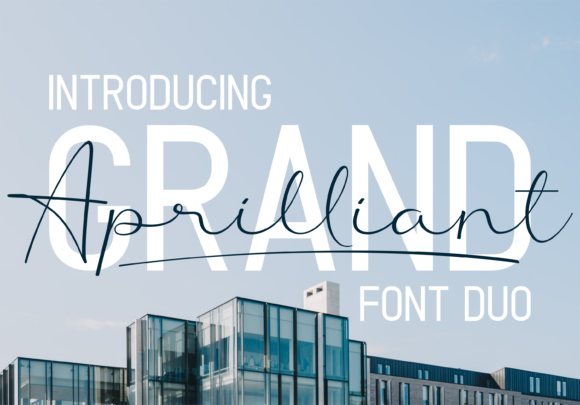
Grand Aprilliant Font Duo
Hello Font Lovers! Continues to be a very beautiful font duo. Introducing Grand Aprilliant Font. The Grand Aprilliant is a beautiful Font duo. It comes in two styles, which can be paired together perfectly; signature script and sans serif. It works perfect in the world of weddings, logos, greeting cards, branding, print ads, quotes, signage, magazines, and more!